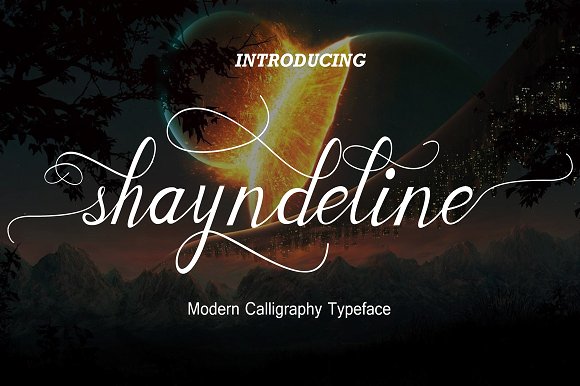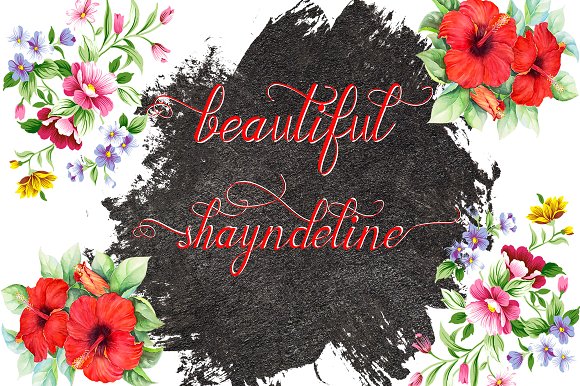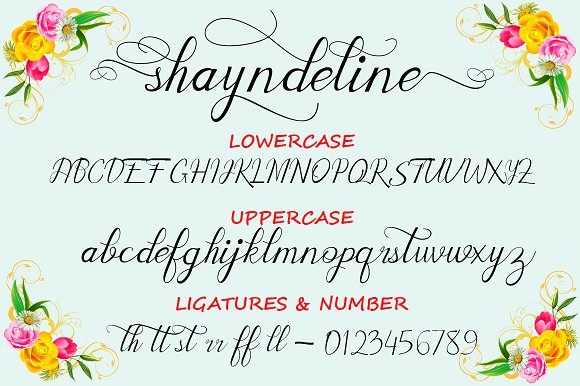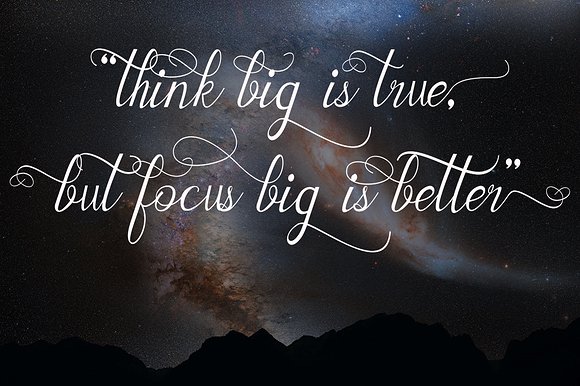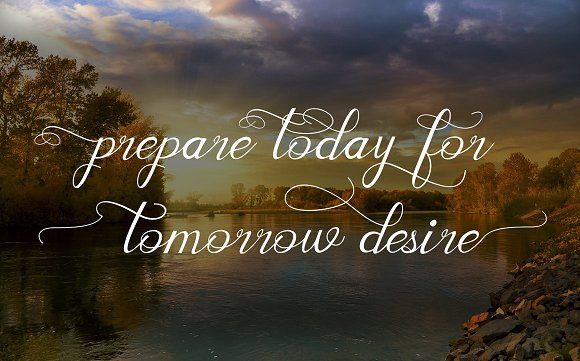
Shayndeline Script font
Shayndeline scripts is a hand calligraphy, smooth, modern and classic, calligraphy wavy, which was created to meet the needs of your next design project. Shayndeline , Can used for various purposes. such as the title, signature, logo, correspondence, wedding invitations, letterhead, signage, labels, newsletters, posters, badges, etc.